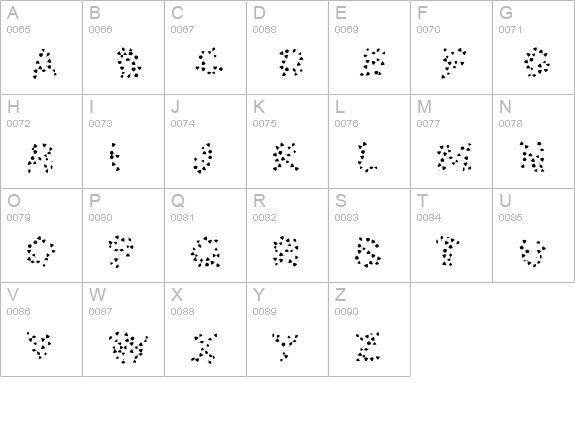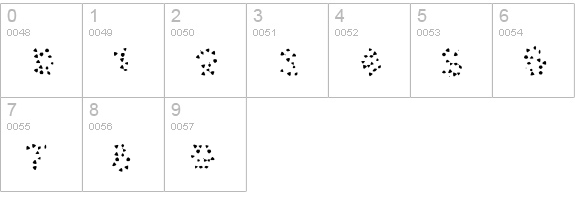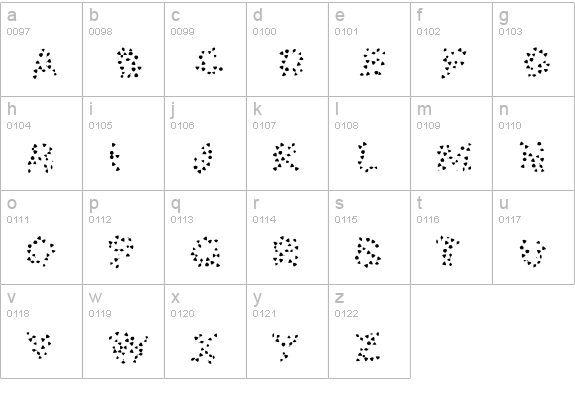
GaudiRed Tile Font Details
Introducing GaudiRed Tile font, a stunning display typeface that exudes a unique charm and artistic flair. Inspired by the intricate designs of renowned architect Antoni Gaudí, this font features bold, geometric shapes and striking details that make it stand out from the crowd. With its eye-catching red color and distinctive tile-like patterns, GaudiRed Tile font is perfect for adding a touch of creativity and sophistication to your designs. Whether you're working on branding, packaging, posters, or any other project, this font is sure to make a bold statement. And the best part? GaudiRed Tile font is completely free to download at FontsMarket.com. So go ahead and give your designs a touch of Gaudí's iconic style with this stunning typeface.